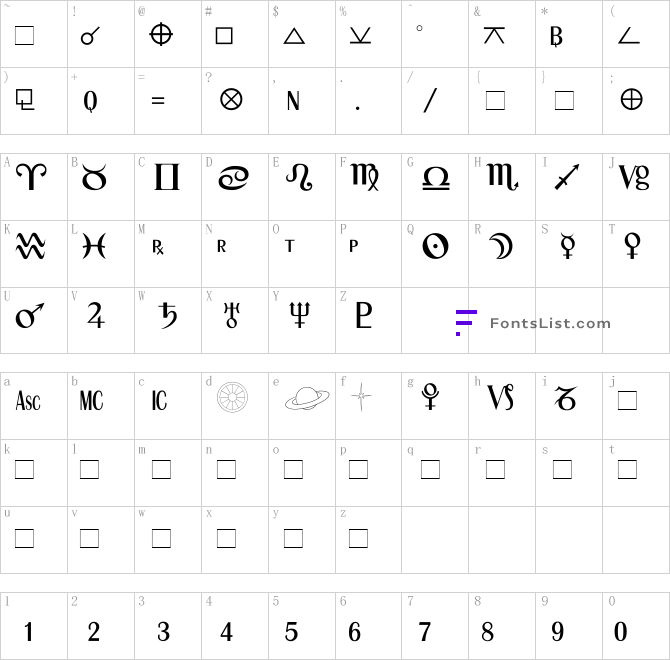
- Font Name:Astro-SemiBold
- Subfamily:DTP-Astro-SemiBold
- Full Name:Astro-SemiBold
- PostScript:Astro-SemiBold
Astro-SemiBold-copy-3-.ttf is a very beautiful artistic font, Astro-SemiBold-copy-3-.ttf is widely used in the design and printing of various books and pictures,Astro-SemiBold-copy-3-.ttf has a strong visual impact,Astro-SemiBold-copy-3-.ttf is a commonly used font in newspapers, magazines and books, and is used in posters, e-commerce Poster design, store design, logo design, font design and other fields.Astro-SemiBold-copy-3-.